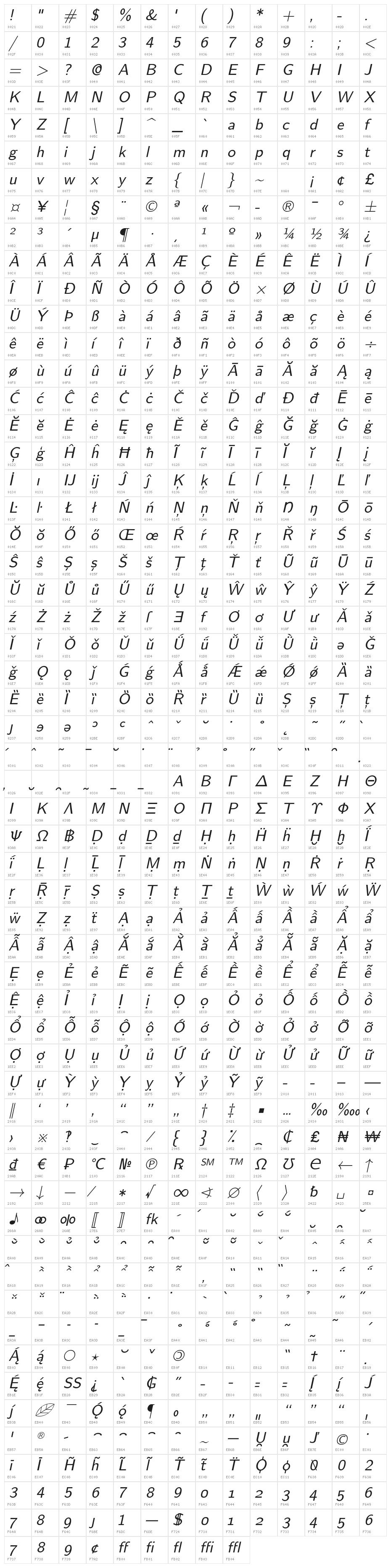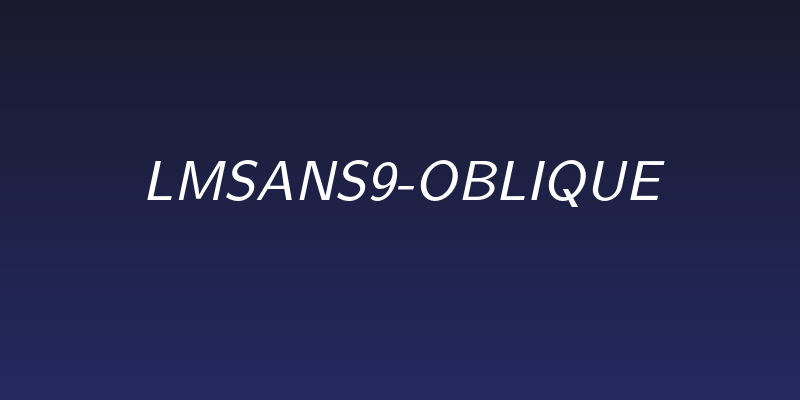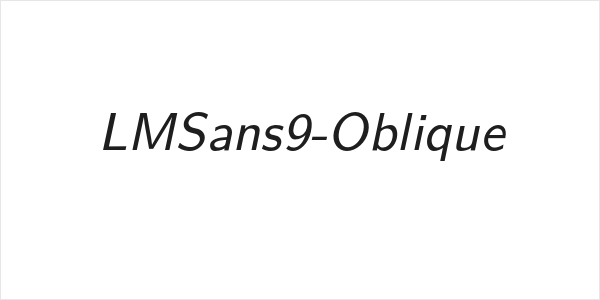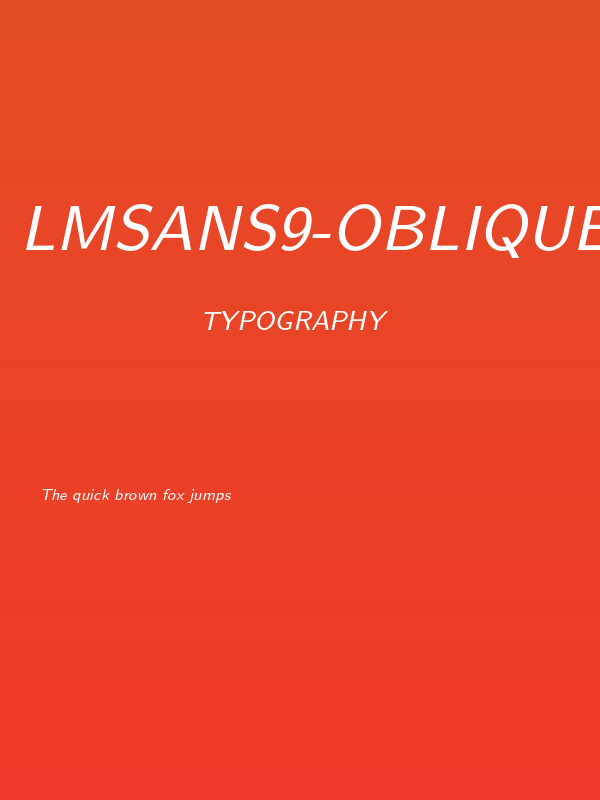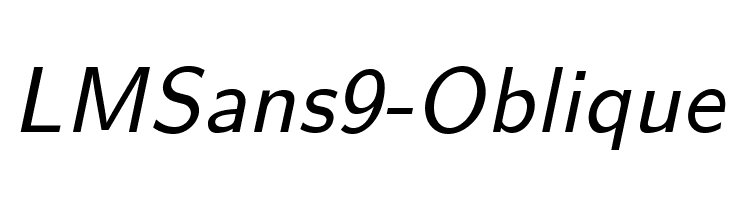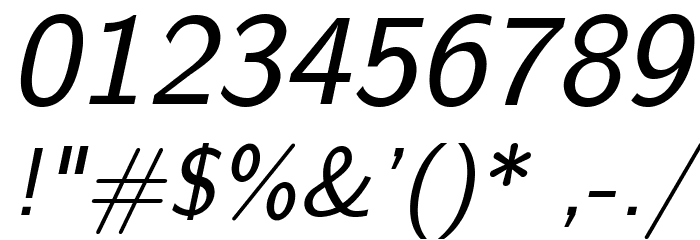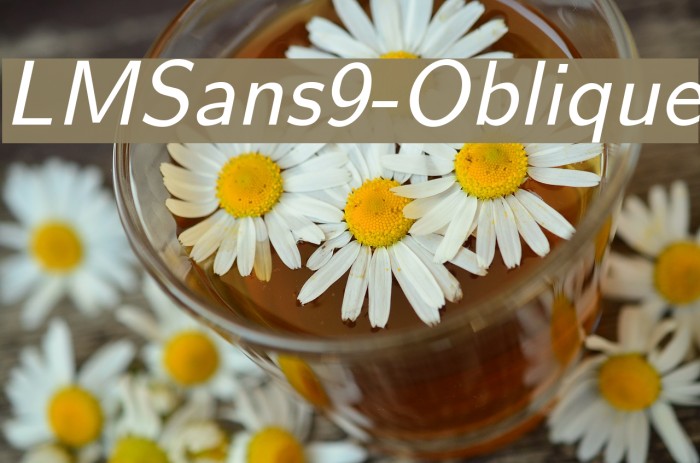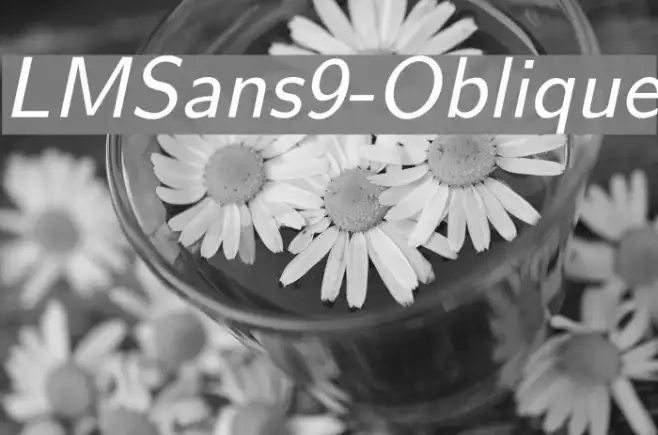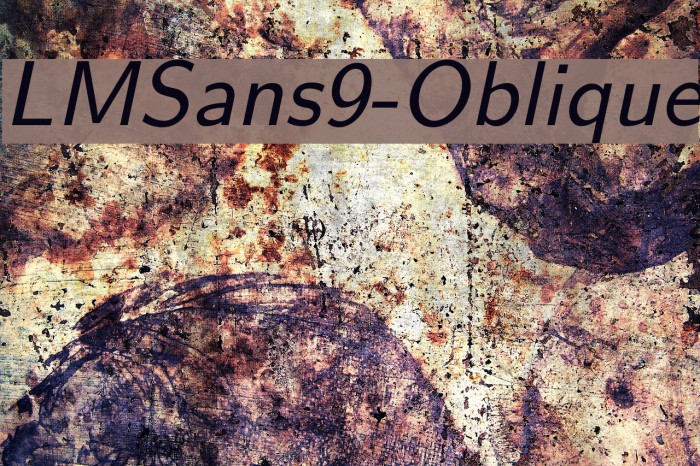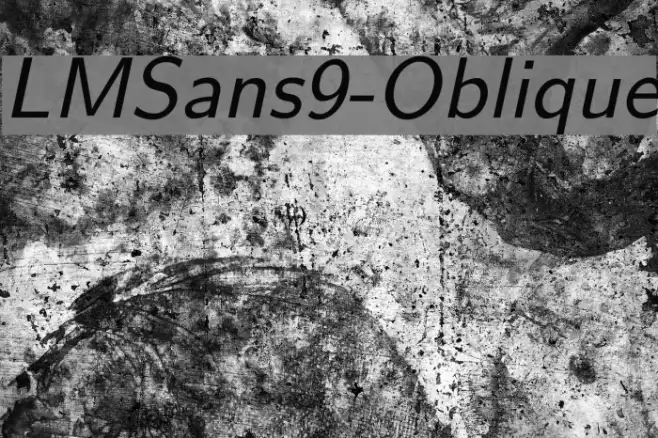
LMSans9-Oblique Font
LMSans9-Oblique Description
This font features a sleek, modern sans-serif style with a distinct oblique slant, giving it a dynamic and forward-moving appearance. The characters are clean and well-defined, with a consistent stroke width that maintains readability across various sizes. The uppercase letters are bold and commanding, while the lowercase letters offer a smooth and approachable feel. Numbers are clear and easily distinguishable, making them suitable for both digital and print media. Special characters are well-integrated, maintaining the overall aesthetic of the font.
| Use Case | Headlines, Body text, Logos |
| Proposed Projects | Ideal for branding, advertising, and digital interfaces where a modern and dynamic look is desired. |